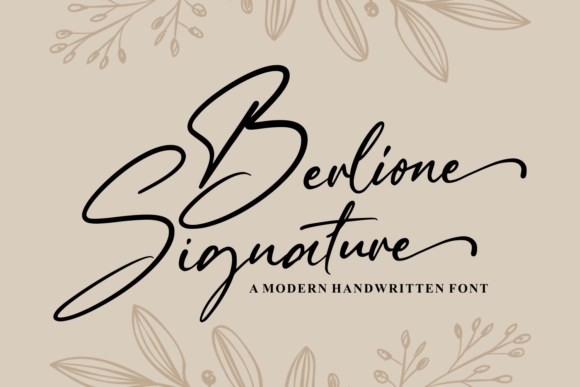
Introducing Berlione Signature Font: Elevate Your Designs with Elegance
In the world of typography, a font can make or break a design. For those seeking a touch of elegance and romance, the Berlione Signature Font is a game-changer. This ravishing, graceful, and cursive handwritten font is designed to captivate and inspire. With its beautiful and well-balanced characters, Berlione Signature effortlessly matches a wide pool of romantic designs, making it a versatile addition to any creative project.
The Beauty of Berlione Signature
Berlione Signature boasts a unique, cursive script that exudes sophistication and charm. Each character is meticulously crafted to ensure a harmonious flow, perfect for creating stunning romantic designs. Whether you’re working on wedding invitations, love letters, or any project that requires a touch of elegance, this font is sure to impress.
One of the standout features of Berlione Signature is its PUA (Private Use Area) encoding. This means that accessing all the glyphs and swashes is incredibly straightforward. Designers can easily navigate and incorporate the various elements into their work, streamlining the creative process. No more tedious searching for the perfect character – with Berlione Signature, it’s all at your fingertips.
The versatility of Berlione Signature is one of its most compelling attributes. This font can be used across a wide range of projects, including:
- Wedding and event invitations
- Branding and packaging
- Stationery and greeting cards
- Digital and print advertising
Wherever you need to add a touch of romance and sophistication, Berlione Signature is up to the task.
Why Choose Berlione Signature?
With so many fonts available, why choose Berlione Signature? Here are just a few reasons:
- Unique and distinctive: Stand out from the crowd with a font that’s both elegant and eye-catching.
- Ease of use: PUA encoding makes it simple to access and use the font’s many features.
- Versatility: Suitable for a wide range of projects, from romantic designs to more formal applications.
- High-quality: Professionally crafted with attention to detail, ensuring a polished finish.
If you’re looking to add a touch of elegance and romance to your designs, look no further than Berlione Signature Font. With its beautiful, well-balanced characters and PUA encoding for easy access, this font is sure to become a staple in your design toolkit.
In conclusion, Berlione Signature Font is a stunning addition to any designer’s arsenal. Its unique blend of elegance, romance, and versatility makes it the perfect choice for a wide range of projects. Whether you’re a seasoned professional or just starting out, this font is sure to inspire and elevate your designs.